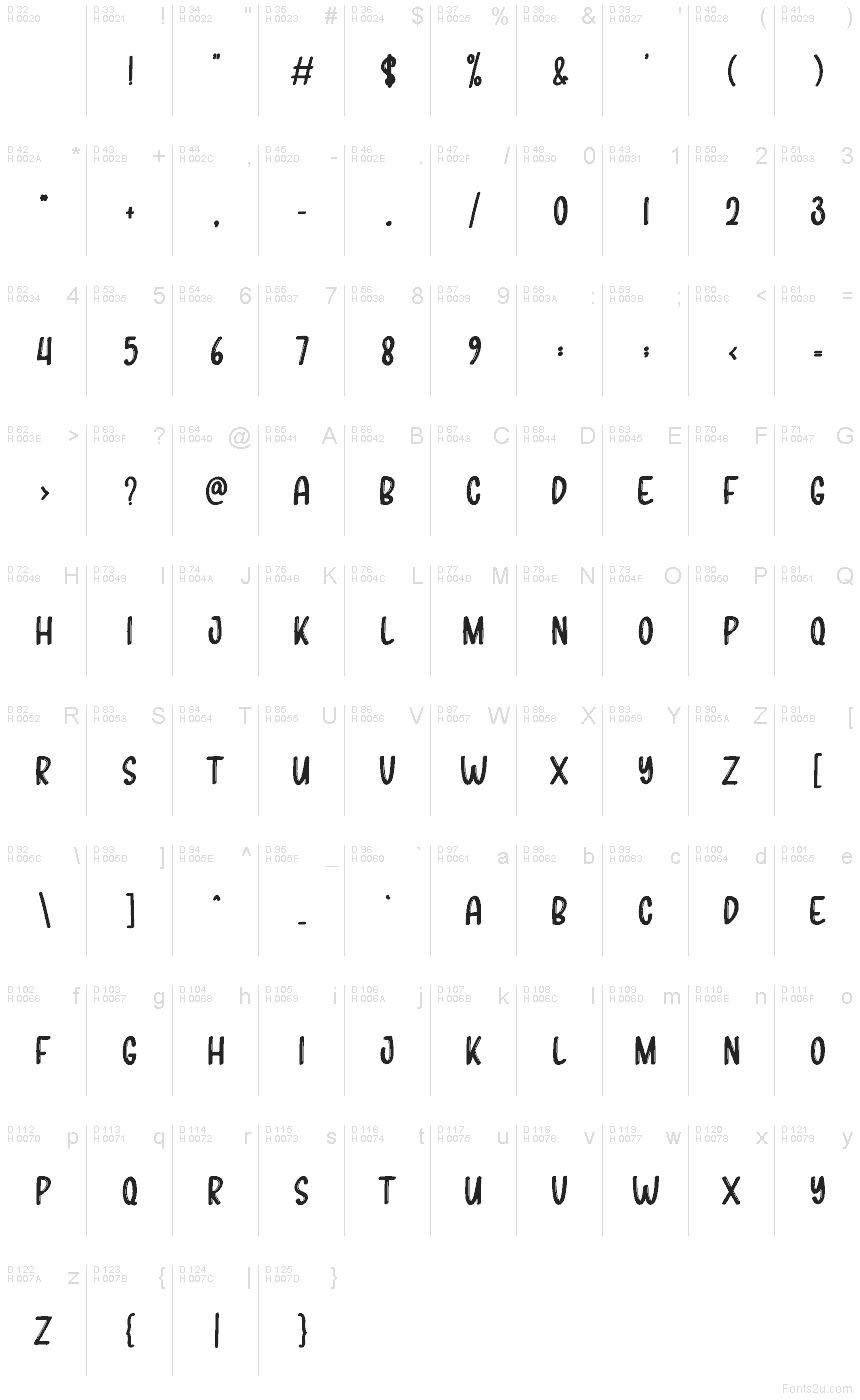
Wintertime font by Andi Moz is a free brush font that feels like hand-painted letters on frosted glass. Its tall, rounded forms and inky, slightly streaked strokes give it a cozy, homemade energy-casual but still easy to read. The gentle wobble in the lines keeps everything feeling warm and human, like signage from a small-town café in the middle of December.
Using Wintertime, your headlines instantly pick up a friendly, seasonal charm that works beautifully for holiday cards, gift tags, product packaging, social media graphics, posters, and kids’ event promos. This free font shines when you use it large and let the textured strokes breathe; pair it with a clean sans serif for body text to keep layouts balanced and readable.